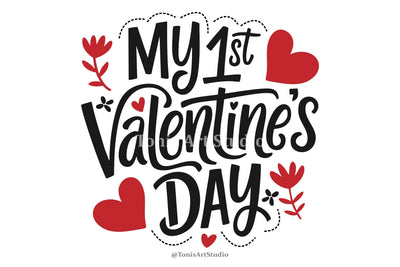
💖 My 1st Valentine's Day SVG Digital Download – A cute and high-quality Valentine’s design for baby onesies, t-shirts, mugs, greeting cards, nursery wall art, and more! This adorable hand-lettered design is perfect for DIY crafters, small business owners, and print shops.